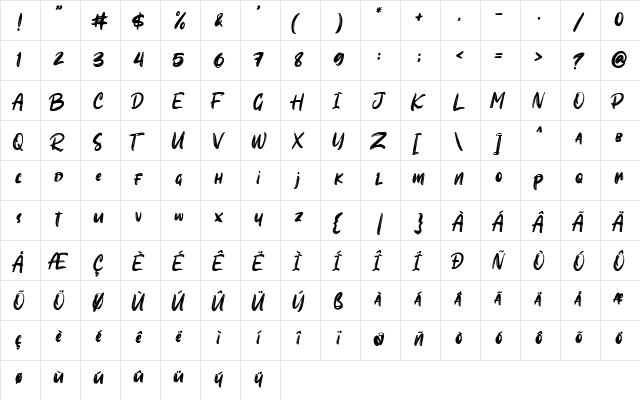
Sombori Regular
Design Context for Sombori Typeface
Sombori is a composed and adaptable typeface that performs quietly and consistently across a wide range of design contexts.